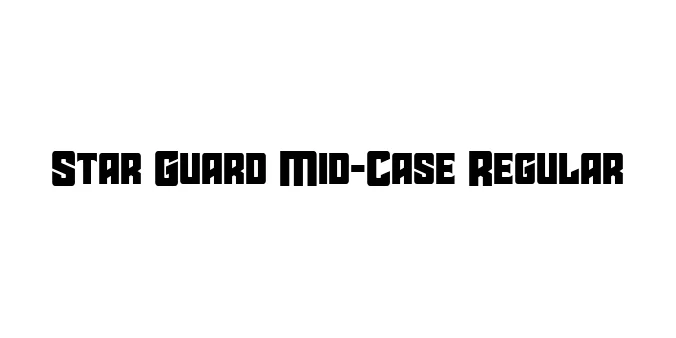
Star Guard Mid-Case Regular
Designed by Dan Zadorozny
| Font Name | Star Guard Mid-Case |
| Designer | Dan Zadorozny |
Star Guard Mid-Case Regular is a robust, futuristic display typeface created by Dan Zadorozny of Iconian Fonts. Drawing inspiration from sci-fi military aesthetics and galactic exploration themes, the font features heavy, blocky letterforms with sharp, aggressive angles. The 'Mid-Case' designation refers to the specific design choice where lowercase characters share a similar visual weight and height to the uppercase set, resulting in a dense, impactful texture ideal for headlines.
Since its release, Star Guard has become a staple in the independent gaming and fan-fiction communities due to its evocative techno-styling. Its clean, geometric construction allows it to remain legible in high-contrast environments, making it a preferred choice for digital interfaces and cinematic titling. The font family is often utilized to convey a sense of strength, technology, and futuristic authority across both digital and print media.
Star Guard Mid-Case Regular Best Uses
Title screens and mission objective headers in sci-fi shooters or strategy games.
Logos for technology startups, aerospace engineering, or robotics firms.
Large-scale headlines for science fiction film posters and event flyers.
High-tech dashboard displays and futuristic computer interfaces.
Screen printing for apparel themed around space exploration or cyberpunk aesthetics.